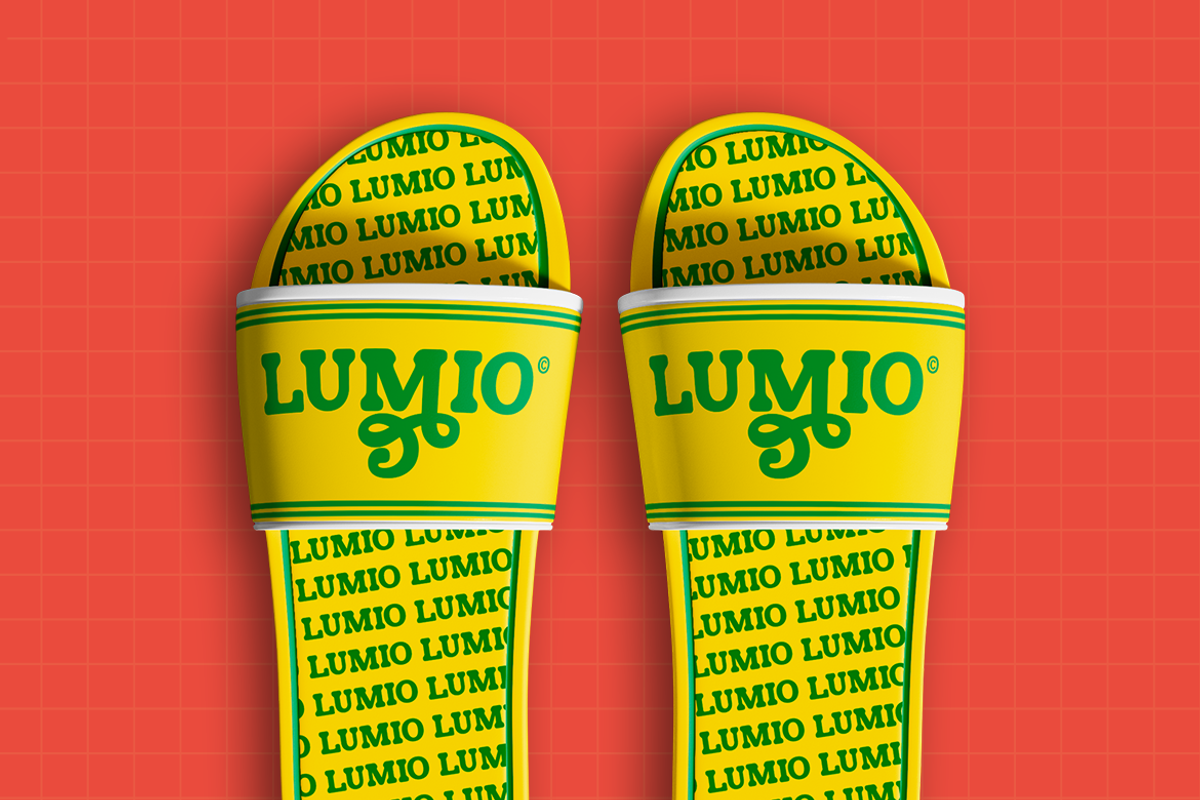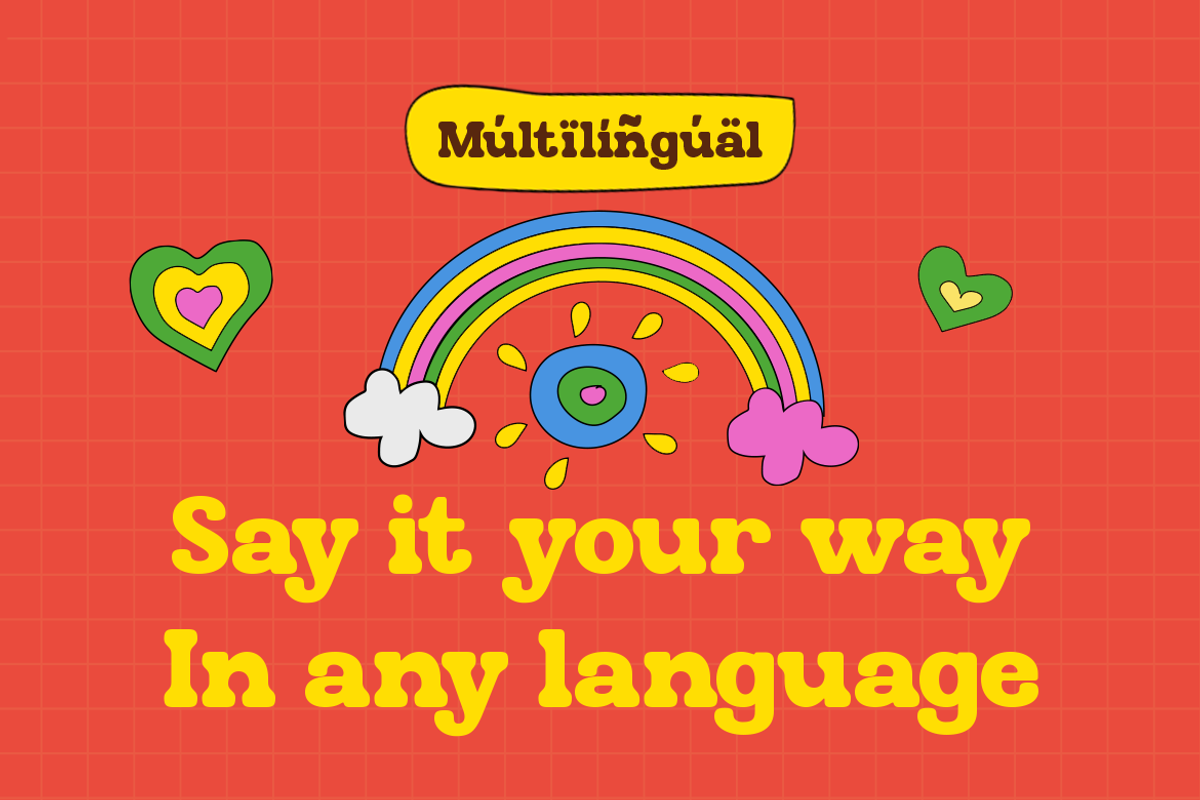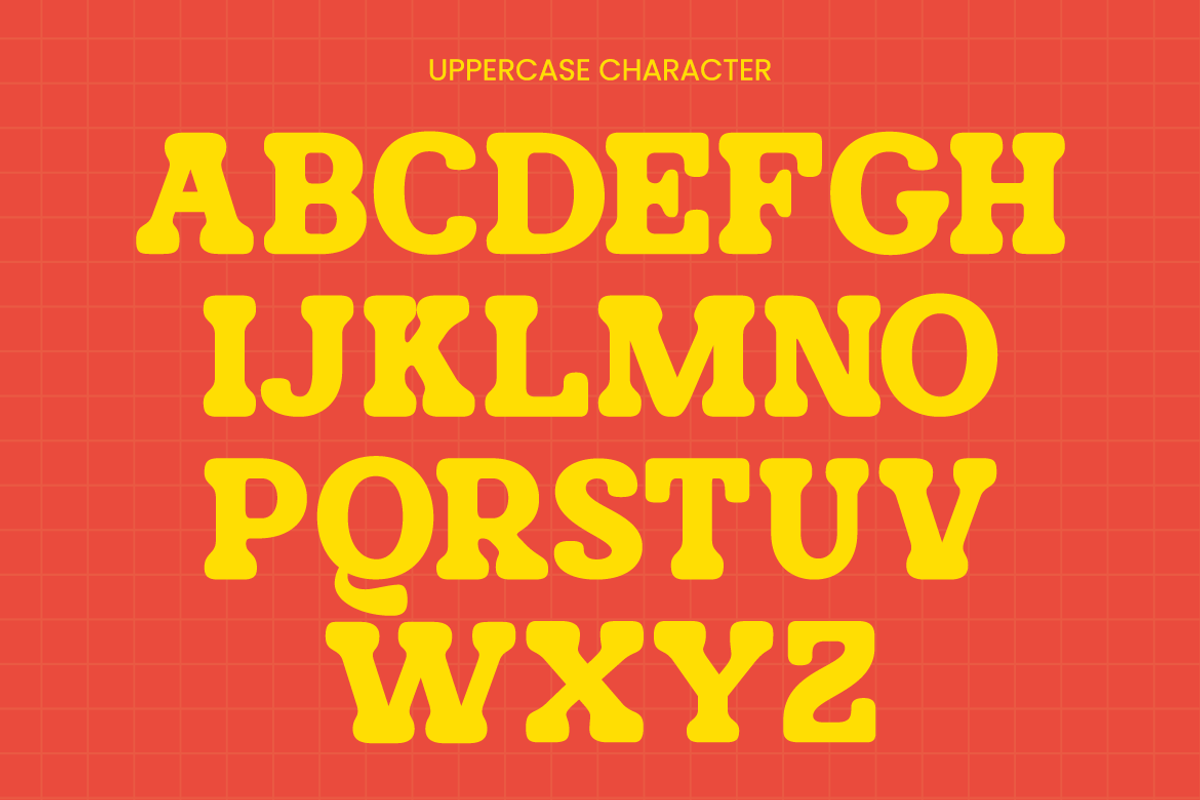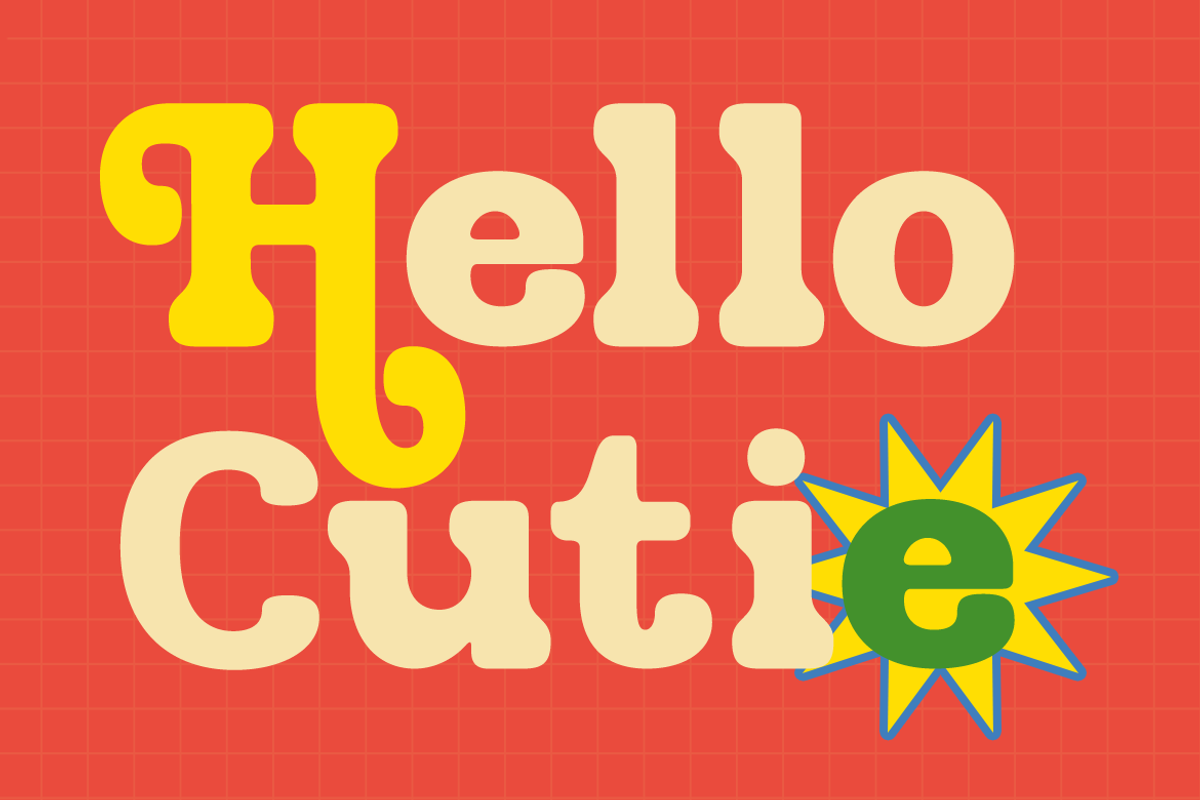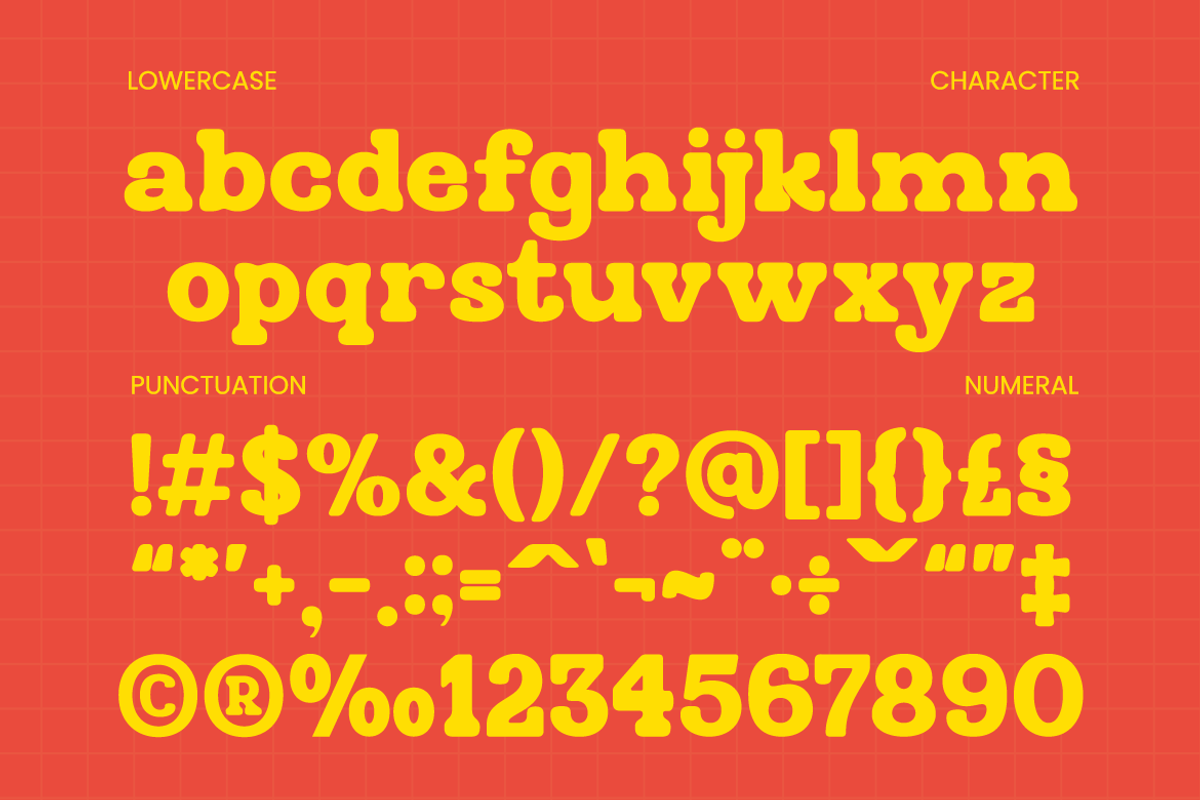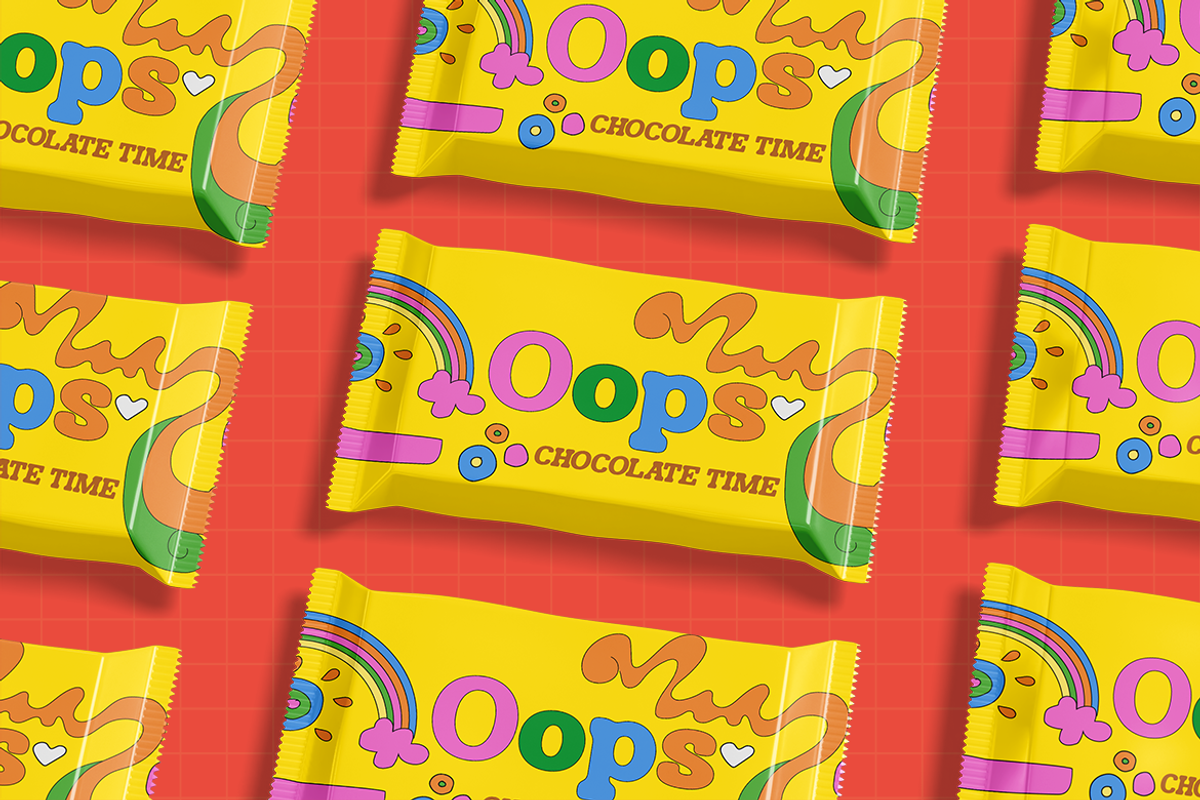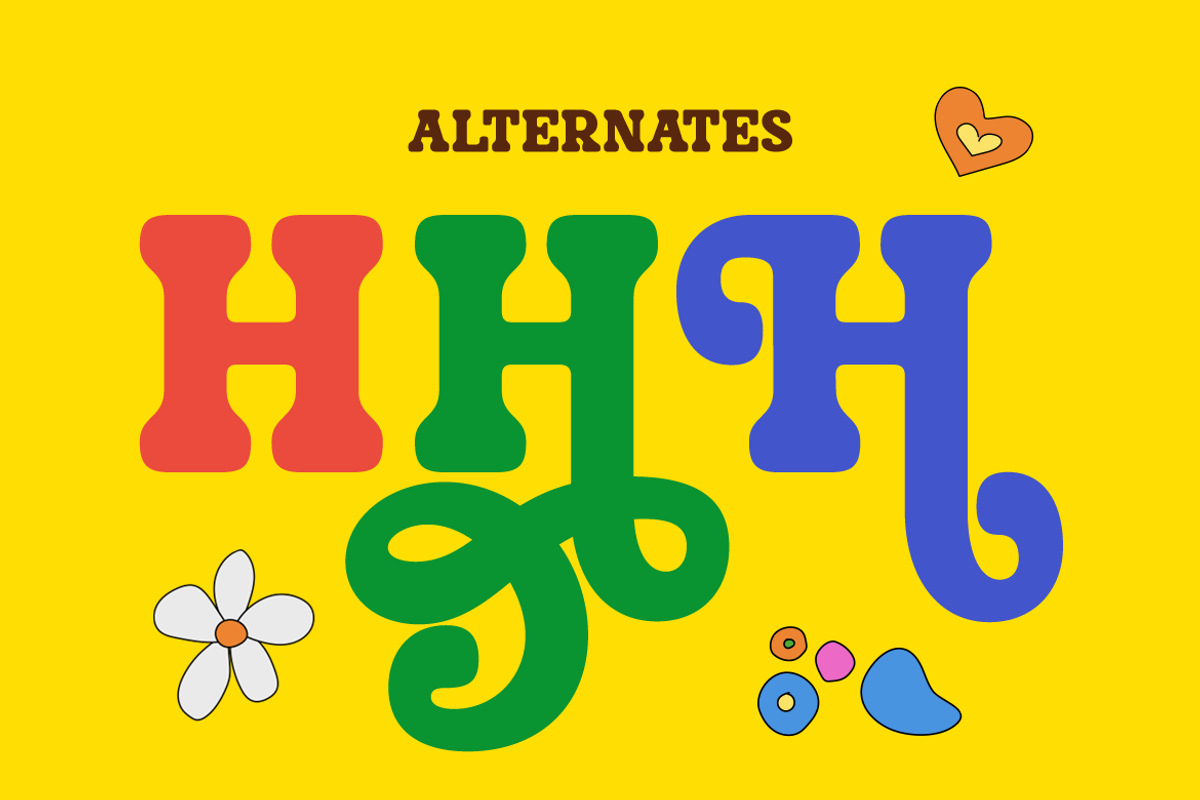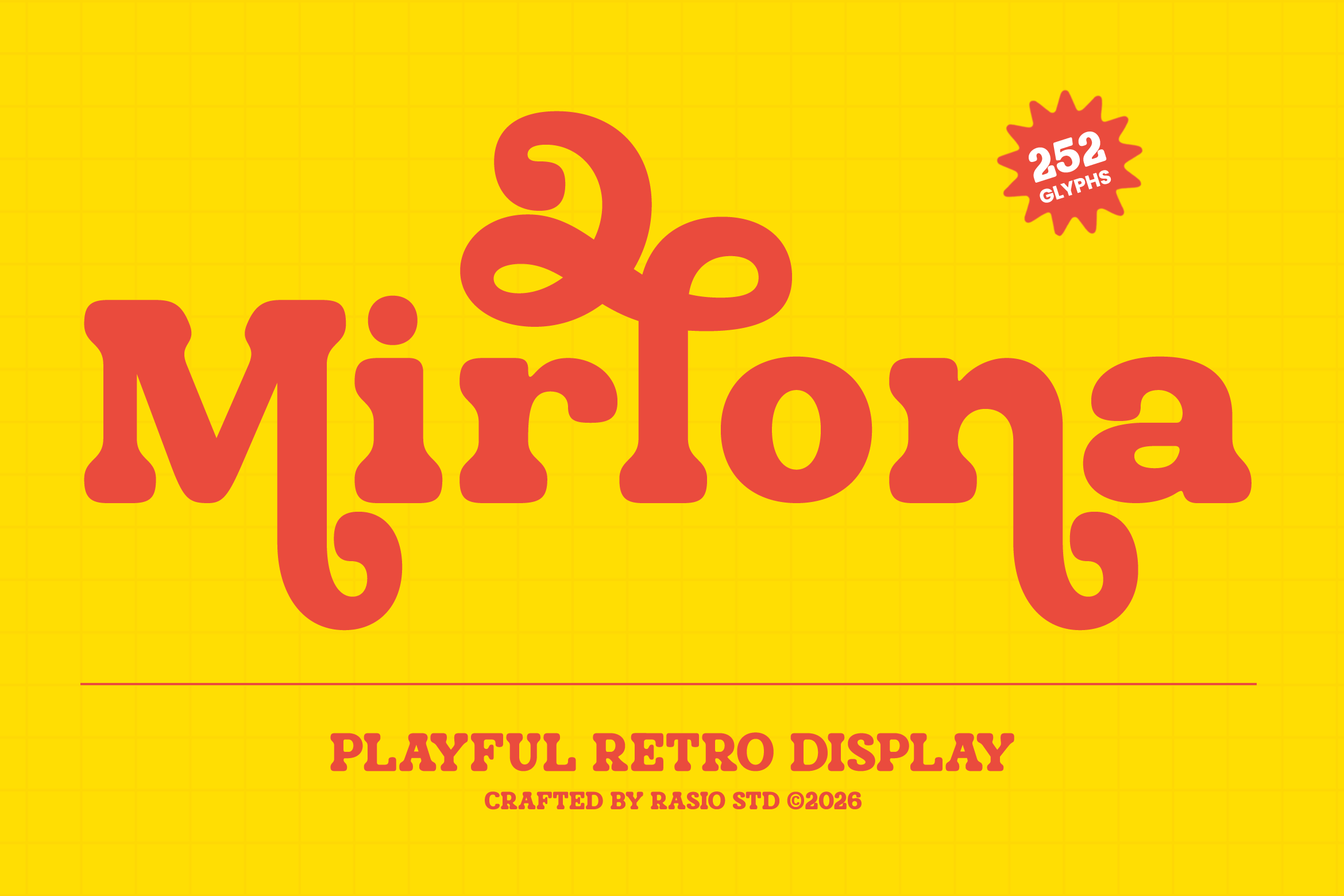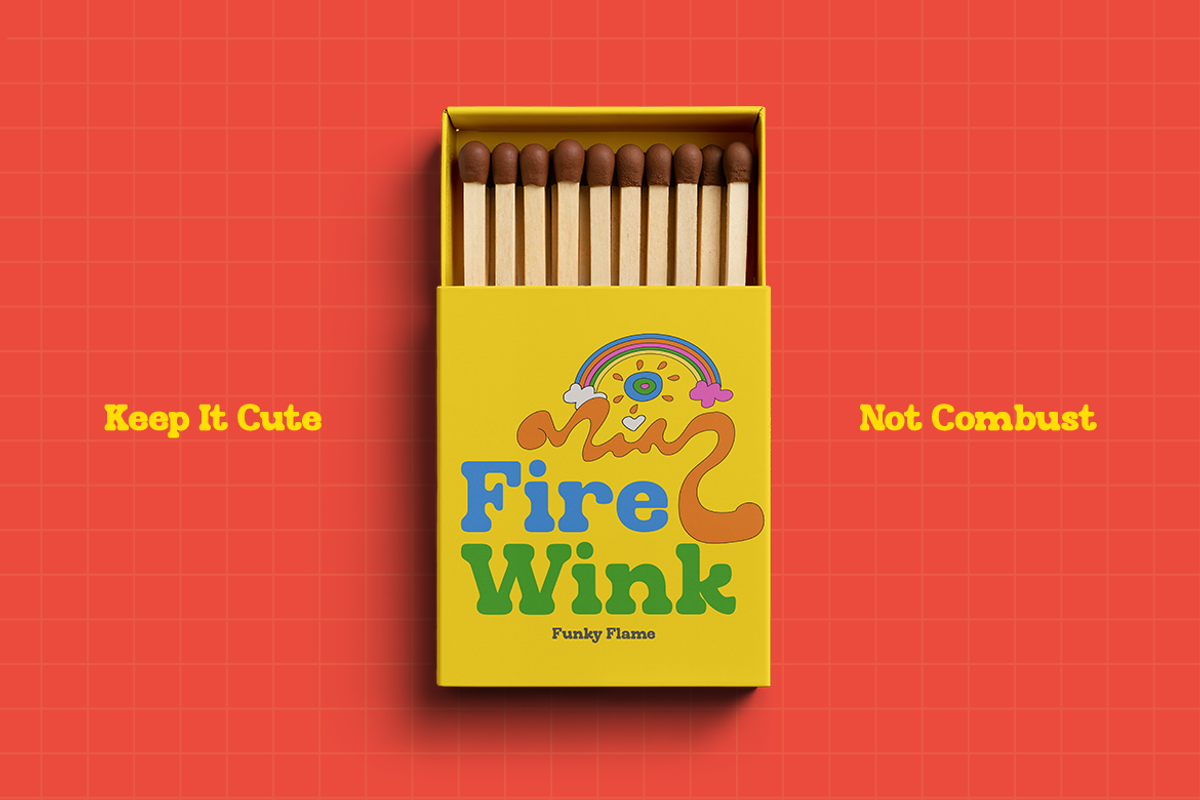
Mirlona Playful Retro Display Font
Mirlona is a playful retro display font inspired by vintage typography and cheerful 70s–80s design aesthetics. Featuring bold rounded shapes, soft curves, and whimsical letterforms, this typeface brings a joyful and nostalgic personality to any creative project. Designed to stand out, Mirtona combines chunky retro proportions with smooth flowing terminals that create a friendly and expressive visual style.
Mirlona is perfect for projects that need a cheerful and nostalgic retro vibe. Its bold and playful letterforms make it ideal for branding, posters, packaging, children's designs, social media graphics, and retro-themed marketing materials. The font’s expressive style helps designs stand out while maintaining a friendly and approachable personality.
- Bold retro-inspired letterforms with chunky, playful proportions
- Soft rounded edges and bubbly curves that create a friendly personality
- Distinctive swashes and decorative alternates for expressive display use
- Balanced stroke weight that maintains clarity while keeping a fun vintage feel
- Carefully crafted spacing that enhances readability for headlines and creative layouts
- Retro-inspired brand identities looking for a fun and nostalgic personality
- Playful packaging design for snacks, candy, beverages, and lifestyle products
- Eye-catching posters, event graphics, and retro-themed marketing materials
- Children's products, toy branding, and cheerful educational designs
- Social media graphics, merchandise, and creative projects that need a bold vibe